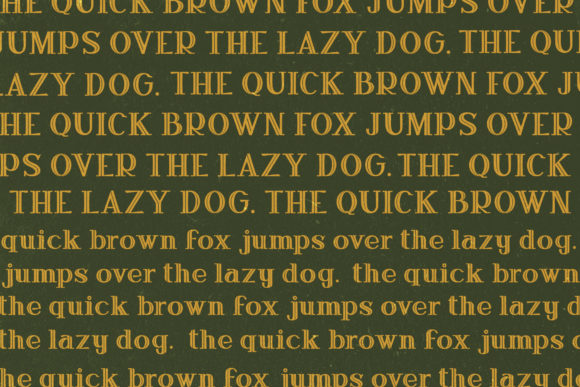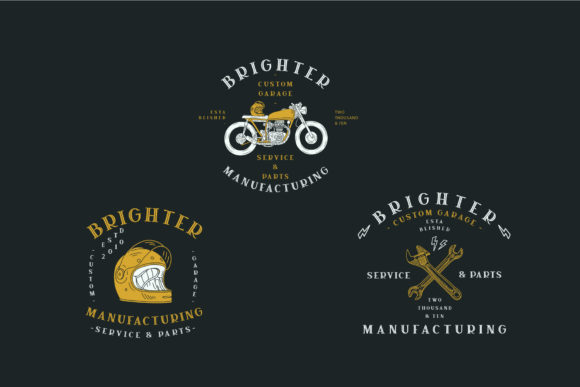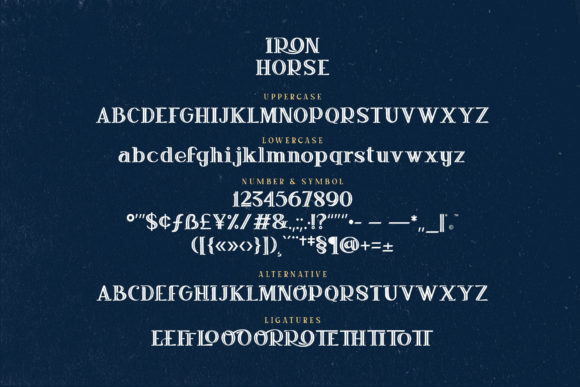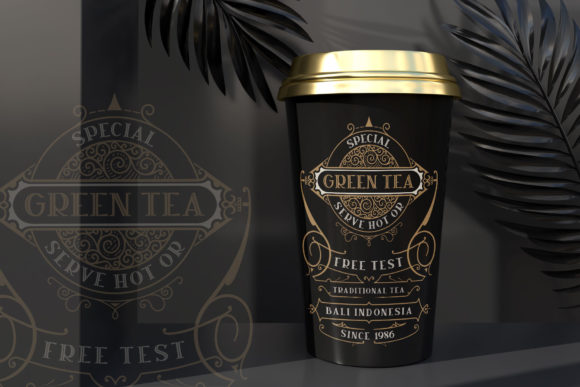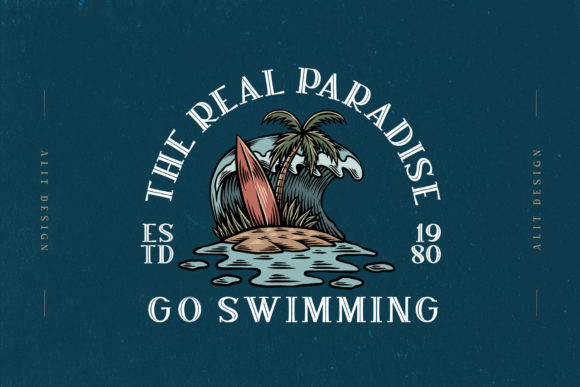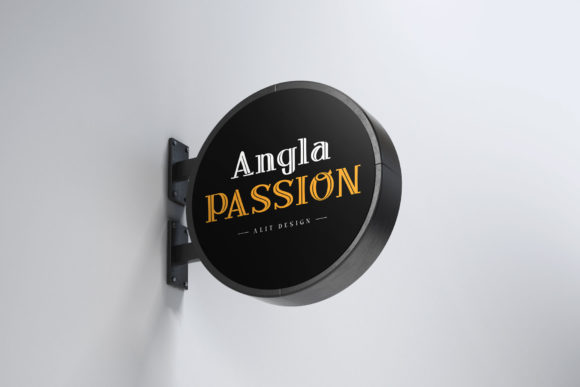
Get Ready to Gallop into the World of Design
Have you ever been struck by inspiration while brainstorming a new project, only to find yourself stuck trying to find the perfect font to match your vision? I know I have! That’s why I’m excited to introduce you to the Iron Horse Font, a cool, bold, and vintage styled display font that’s sure to take your designs to the next level.
With its unique blend of classic and modern elements, the Iron Horse Font is perfect for a wide range of crafty ideas, from letterheads and titles to stationery. And the best part? It’s PUA encoded, making it easy to access all of the glyphs and swashes you need to create truly unique designs.
Whether you’re a seasoned designer or just starting out, the Iron Horse Font is a valuable addition to any toolkit. Its versatility and ease of use make it an essential choice for anyone looking to add a touch of vintage charm to their work.
Iron Horse Font Key Features
- Unique Characteristics: Features a unique blend of modern and vintage elements, with a strong, bold aesthetic and a wide range of ligatures and alternates
Iron Horse Font Review
Overall, I’m quite impressed with the Iron Horse font, but it’s not without its flaws.
- The font has a unique and rugged aesthetic that’s perfect for titles and headings.
- The bold weights are well-designed and add a lot of depth to the font.
- The font is highly legible, even at smaller sizes, which is a must for any font.
- The font is highly versatile and can be used for a wide range of designs, from logos to posters.
- The font’s irregularities can make it difficult to read in certain situations, such as when used for large blocks of text.
- The font’s rugged aesthetic may not be suitable for all designs, particularly those that require a more modern or sleek look.
- The font’s support for certain languages may be limited, which could be a problem for designers who need to work with a wide range of languages.
Overall, I think the Iron Horse font is a great choice for designers who want to add a unique touch to their designs. While it may have some limitations, its unique aesthetic and high legibility make it a great option for a wide range of designs.
The Iron Horse Font is ideal for creating a rugged, vintage look. Use it for:
- Western-themed designs
- Retro-style posters
- Outdoor and adventure-themed projects
Experiment with different font sizes and styles to achieve the desired look.
Alternative Fonts to Iron Horse
Rockwell Font
Rockwell is a classic serif font, suitable for formal and professional documents, such as business reports and academic papers. It is a great alternative to Iron Horse Font for designers who want a more traditional and elegant look.
Compared to Iron Horse Font, Rockwell is more formal and has a more classic feel. While Iron Horse Font is a bit more casual and has a rougher texture, Rockwell is smooth and sophisticated.
Playfair Display is a luxurious serif font, perfect for creating a high-end and elegant look. It is ideal for use in titles, headings, and other display typography.
Compared to Iron Horse Font, Playfair Display is more ornate and has a more luxurious feel. While Iron Horse Font is rugged and casual, Playfair Display is refined and sophisticated.
Playfair Display Font is not a good alternative for casual use. A better alternative would be the
Great Vibes is a beautiful script font, suitable for use in casual and creative projects, such as wedding invitations, greeting cards, and social media graphics.
Compared to Iron Horse Font, Great Vibes is more elegant and has a more refined feel. While Iron Horse Font is rugged and casual, Great Vibes is smooth and stylish.
Another good alternative would be the
Bad Script Font
Bad Script is a modern and stylish script font, perfect for use in creative and casual projects, such as advertisements, social media graphics, and product packaging.
Compared to Iron Horse Font, Bad Script is more modern and has a more edgy feel.